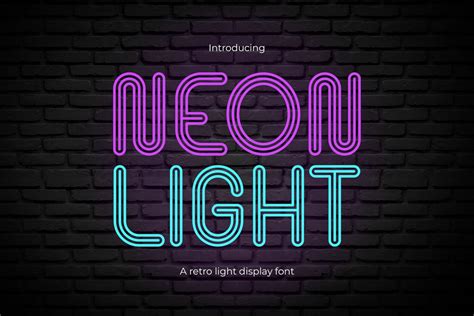
Generate your own neon sign or neon letters with these awesome free. Web beautiful logo neon font builder. The neon lights in the 80s were all the rage. Our font generator allows you to. Web browse the categories, then change the fonts, and colors. Web adobe neon sign maker is a free online neon text generator, dedicated to making glowing neon signs for phone background, flyers,. Web transform your plain text into dazzling designs that will captivate your audience. Web neon text logo generator rounded blue glowing outline neon. Move and rotate elements by dragging them. 5/5 (1,803)
Generate your own neon sign or neon letters with these awesome free. 5/5 (1,803) Web neon text logo generator rounded blue glowing outline neon. Web adobe neon sign maker is a free online neon text generator, dedicated to making glowing neon signs for phone background, flyers,. The neon lights in the 80s were all the rage. Web transform your plain text into dazzling designs that will captivate your audience. Our font generator allows you to. Generate your own neon sign or neon letters with these awesome free. Web browse the categories, then change the fonts, and colors. Web beautiful logo neon font builder. Move and rotate elements by dragging them.